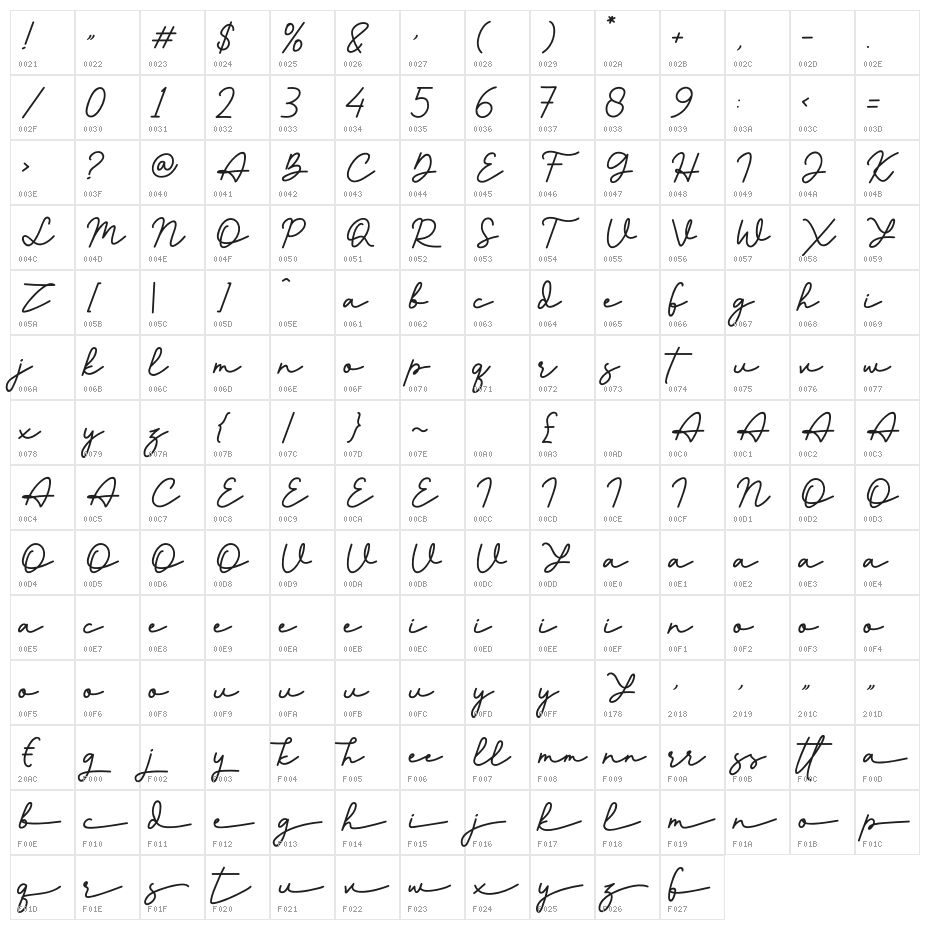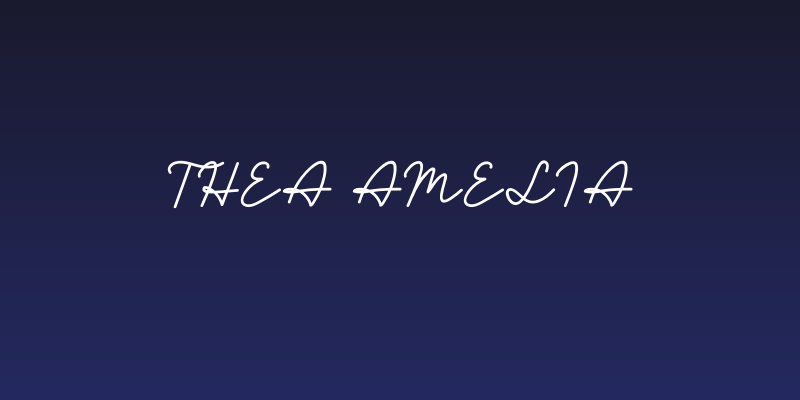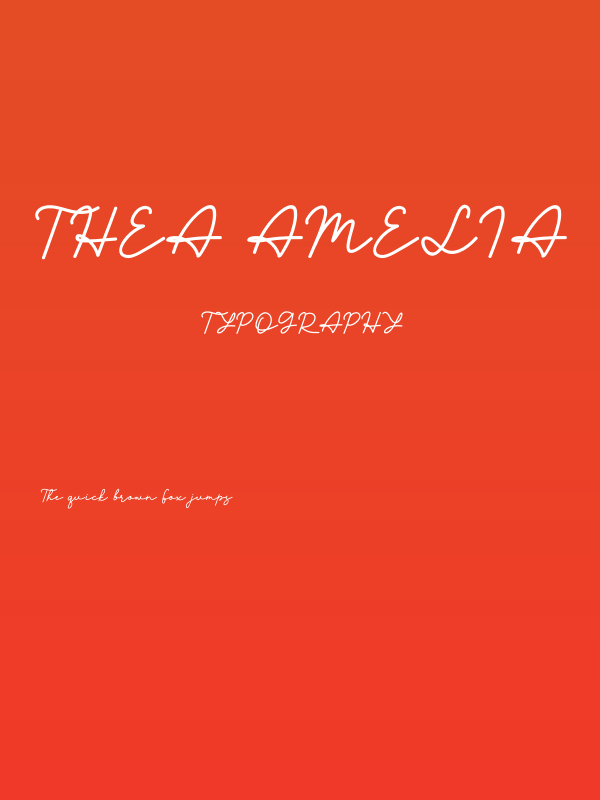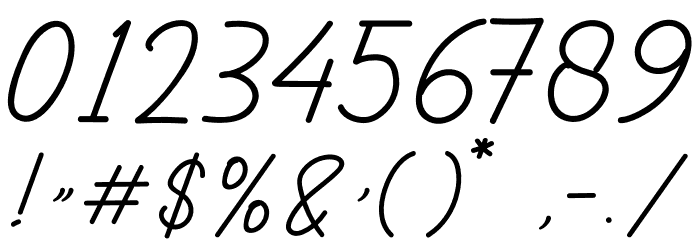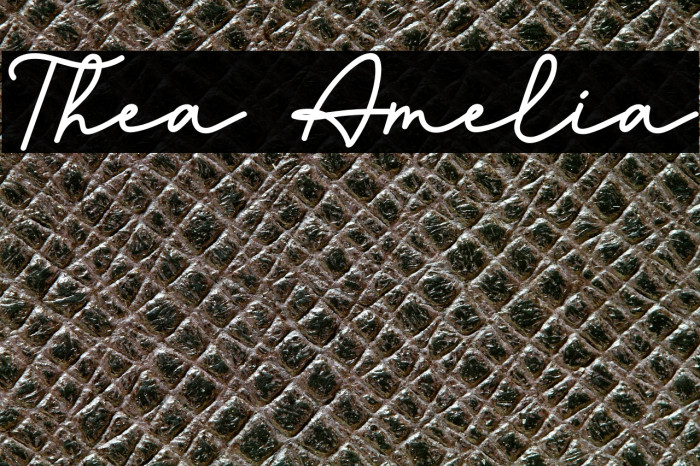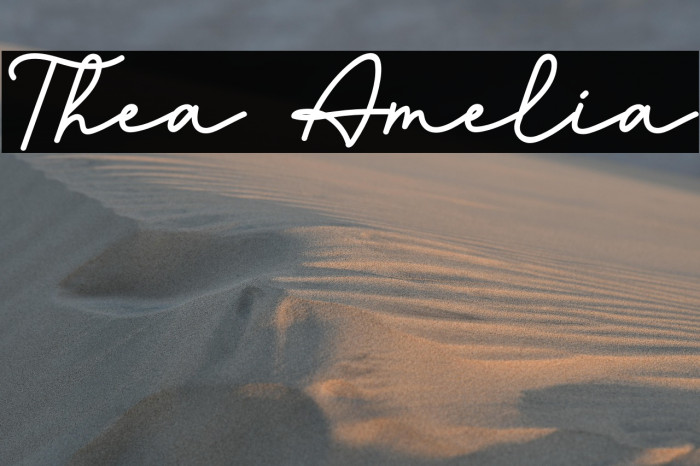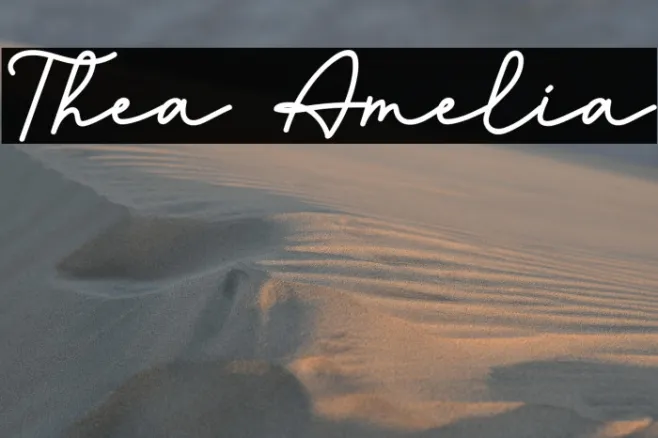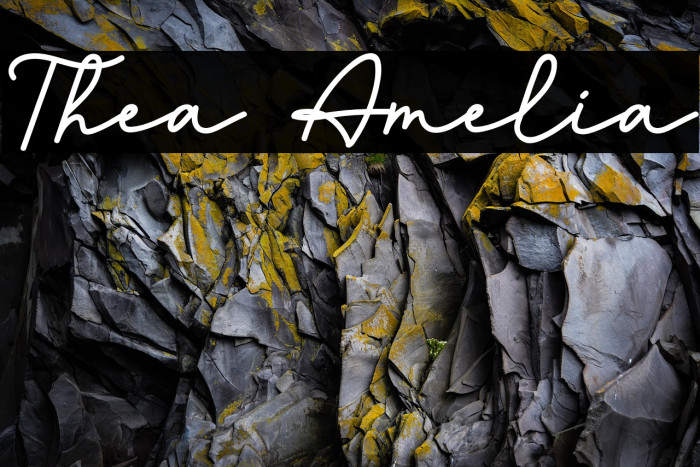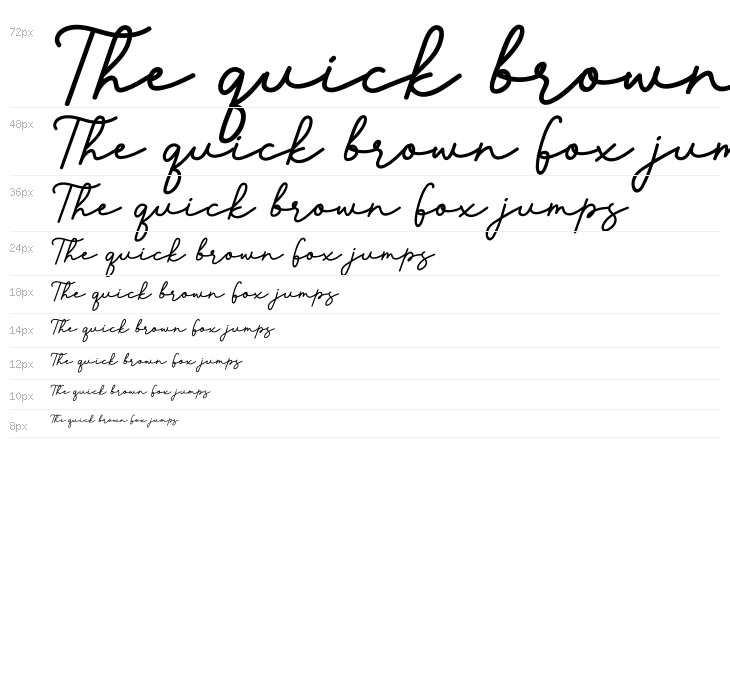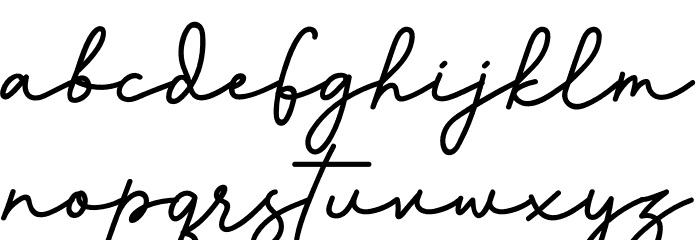
Thea Amelia Font
Thea Amelia Description
This font features a flowing, cursive style that mimics elegant handwriting. The characters are connected, creating a seamless and fluid appearance. The uppercase letters maintain a consistent height, while the lowercase letters exhibit a graceful slant, enhancing the script's natural flow. The numerals and special characters are designed to complement the alphabet, maintaining the same cursive aesthetic. The strokes are smooth and consistent, with a medium contrast that adds to the readability without compromising the decorative nature of the script.
| Proposed Projects | Ideal for wedding invitations, personal branding, greeting cards, and elegant stationery. |